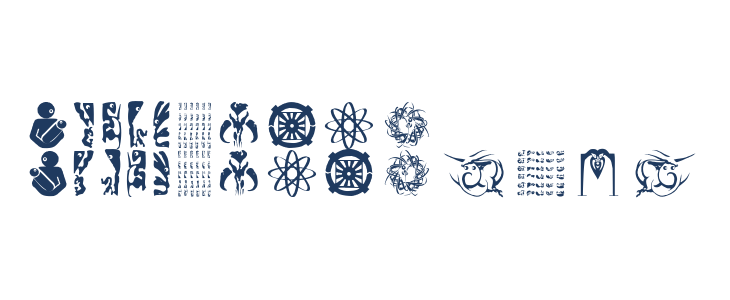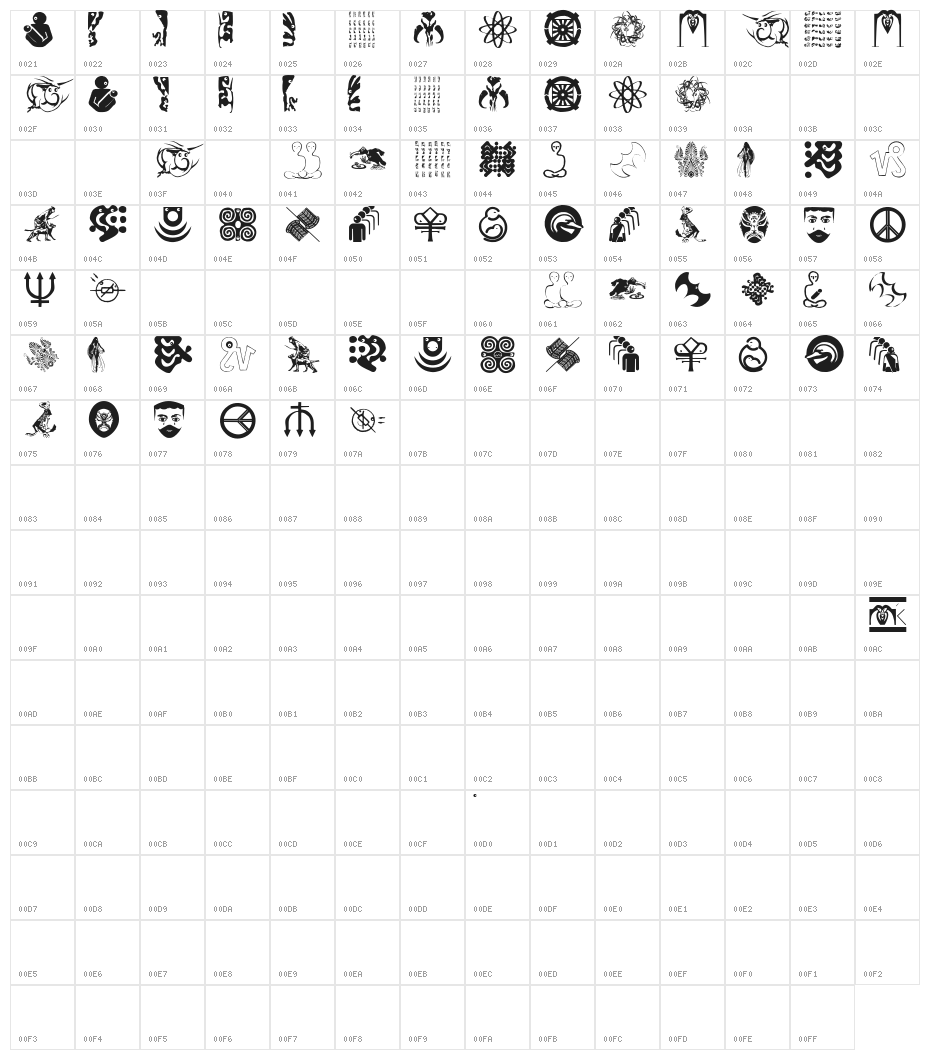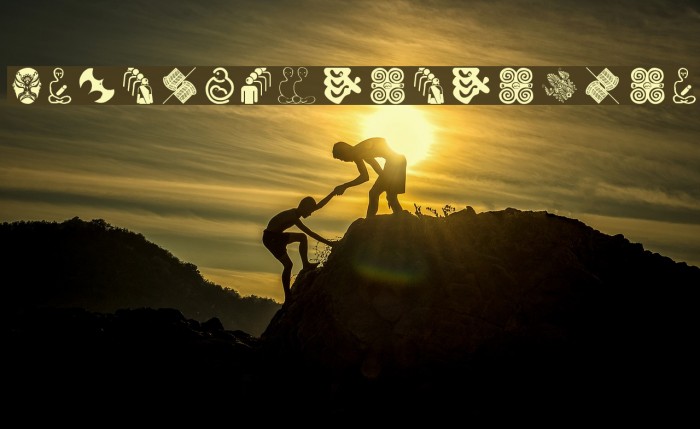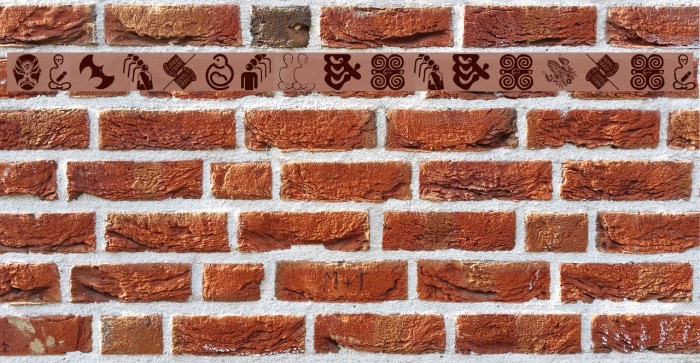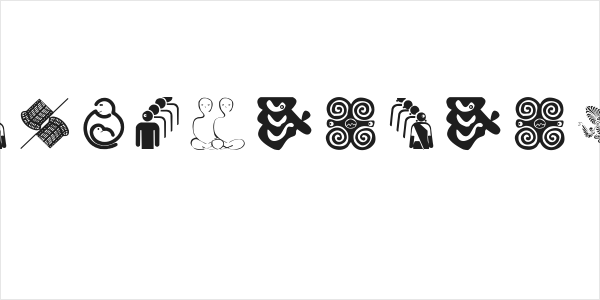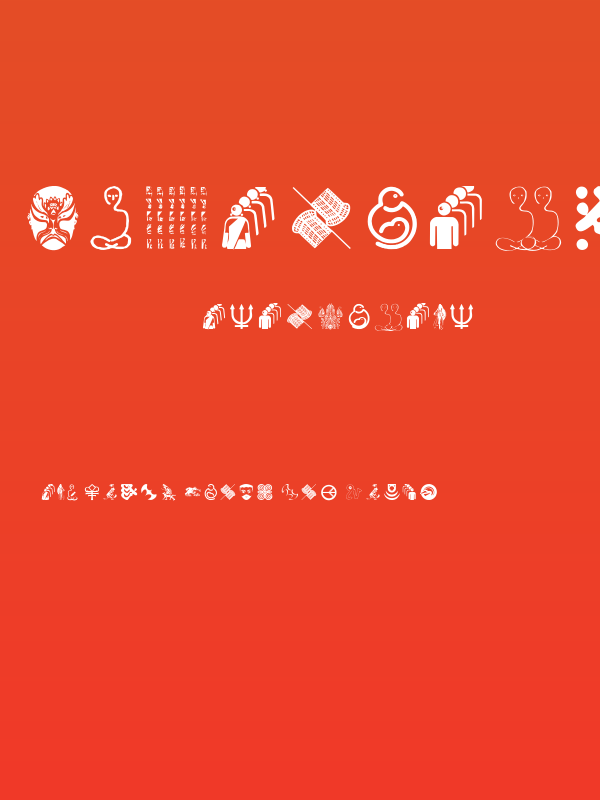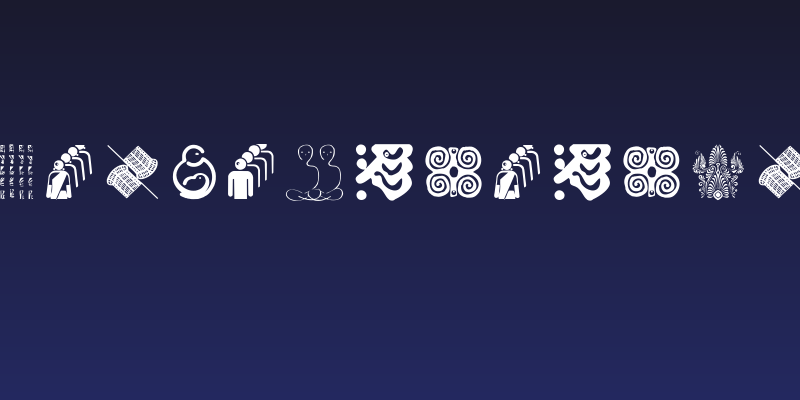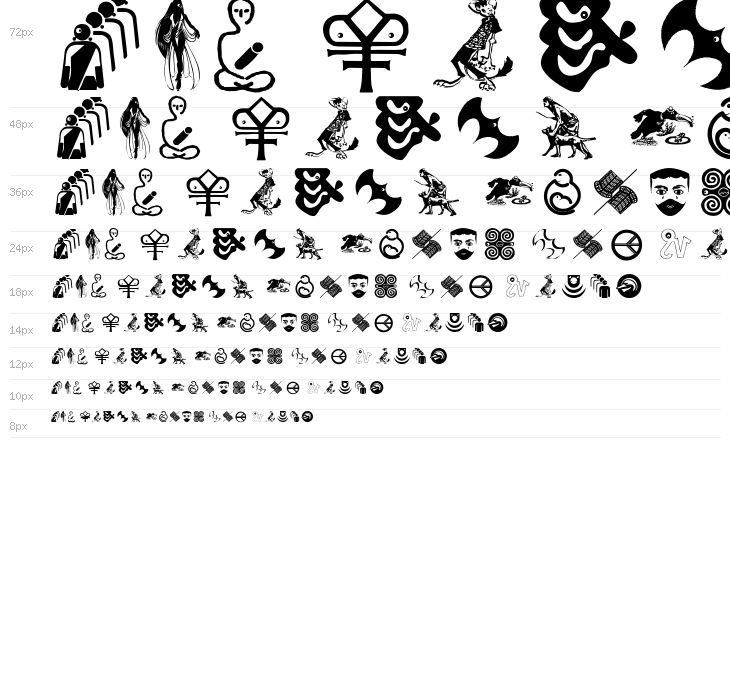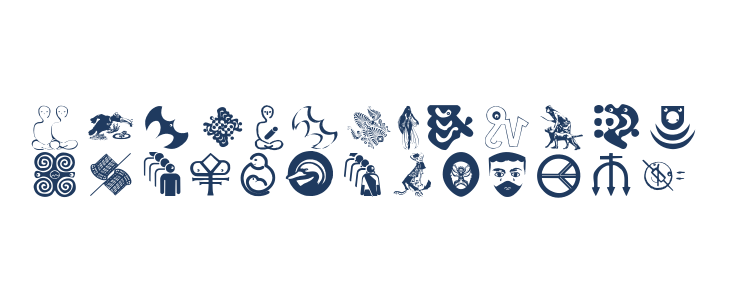
VectorPaintingOne Font
VectorPaintingOne Description
A highly decorative and eclectic collection of vector-based pictograms and symbols, featuring a mix of abstract, geometric, and illustrative elements. The set includes representations of people, animals, mythological figures, scientific icons, and various motifs, with both solid and outlined styles. The glyphs vary in complexity and visual weight, offering a diverse range of visual expressions.
| Overall Style | Decorative, Eclectic, Illustrative |
| Use Case | Logos, Icons, Decorative graphics, Thematic illustrations |
| Proposed Projects | Branding, posters, editorial illustrations, educational materials, infographics, decorative elements, and digital interfaces. |